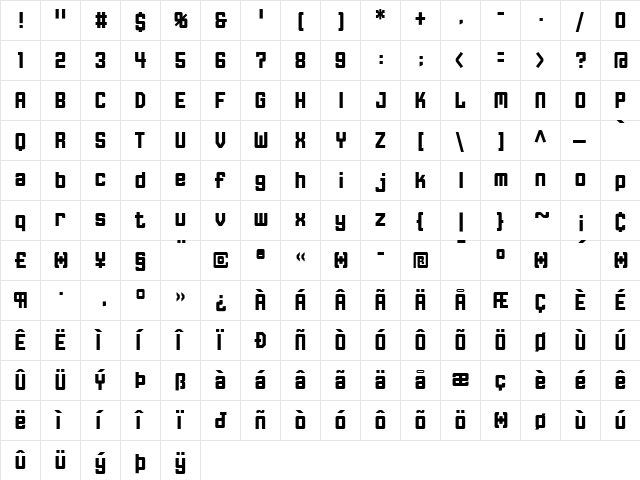
FFGothic OneTwoCondensed Font Preview
FFGothic OneTwoCondensed
FFGothic OneTwoCondensed Font Details
| Style | OneTwoCondensed |
| Foundry | Copr. Neville Brody & The Font Bureau, Inc |
Design Context for FFGothic Typeface
FFGothic has the quiet confidence of well-executed sans-serif typography: versatile, unobtrusive, and dependable at any size. The condensed width makes it efficient for tight spaces without sacrificing legibility.